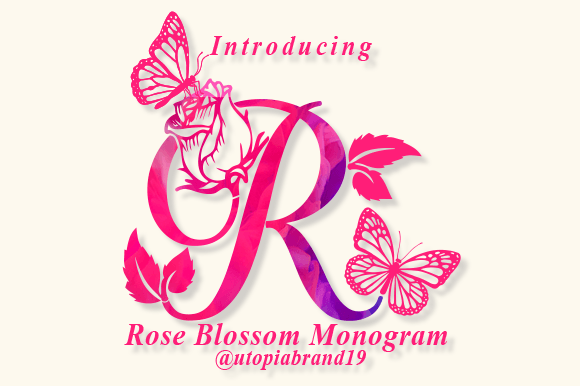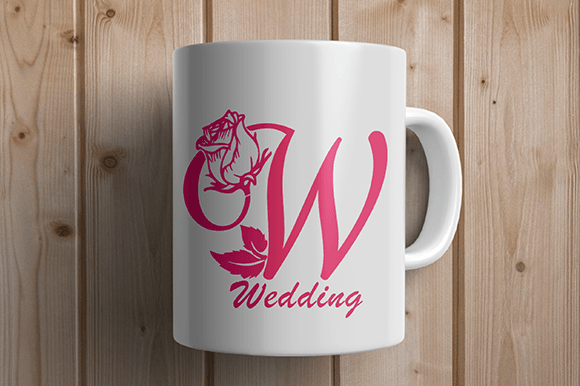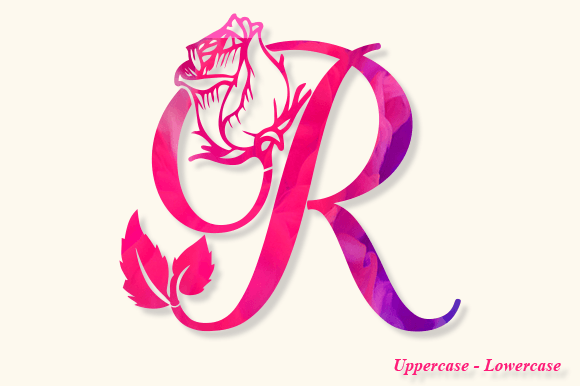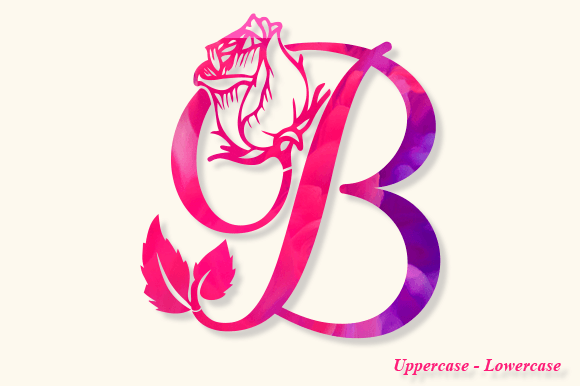
Rose Blossom Monogram Font
About the Rose Blossom Monogram Font
We are excited to introduce Rose Blossom Monogram Font, a must-have typeface for any serious designer. Rose Blossom Monogram is an elegant decorative font, featuring lovely ornaments. Fall in love with its authentic feel and use it to create gorgeous wedding invitations, beautiful stationary art, eye-catching social media posts, and cute greeting cards.
Rose Blossom Monogram’s elegant, decorative style is ideally suited for projects requiring a touch of vintage charm. It excels in headlines, short text blocks on invitations and stationery, and as an accent in logos or branding for businesses focusing on beauty, fashion, or artisanal goods. However, its ornate nature makes it less suitable for body text or UI elements where readability is paramount.
Pairing Rose Blossom Monogram with a clean sans-serif like Lato or Open Sans for body copy creates a balanced contrast, allowing the decorative font to shine while maintaining legibility. For a more traditional feel, consider pairing it with a classic serif font such as Garamond or Playfair Display.
The font’s core personality is undeniably elegant and romantic, making it perfect for brands aiming for a sophisticated and timeless aesthetic. Avoid using it for projects that demand a modern or minimalist feel.
Rose Blossom Monogram Font Usage Examples
Rose Blossom Monogram Font Example